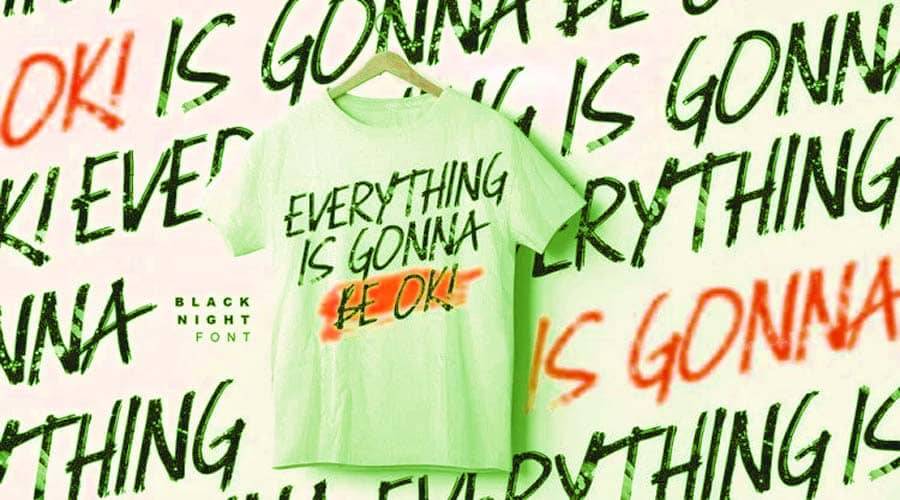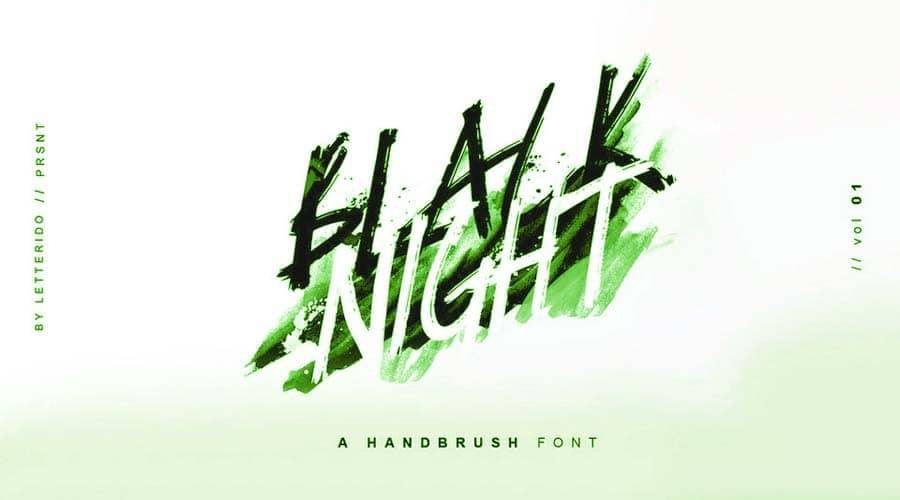
Blacknight Free Font
Blacknight Free Font is a unique Brush and Script font. Letterido created and shared the Font on October 3, 2019.
Blacknight Free Font is a hand-drawn font with simple brush strokes. This lovely Font can also convey a sense of power and spirit. The Font is available for free download and personal use. The Font appears to be available in both TrueType and OpenType file formats. Multiple fonts are similar to Blacknight Free Font. Those similar fonts are Overdrive Sunset Brush Font, Zenghief Hand Brush Font, Duwhoers Brush Font Free, Sang Dewi Hand Brush Script Font and many more.
Blacknight Free Font is appropriate for various applications, including sports, songwriting, festivals, travel, youtube vlogs, brand image, and many more. In addition, the beautiful Script and brush font often get used for making logos on t-shirts. It looks great in all colours as well.